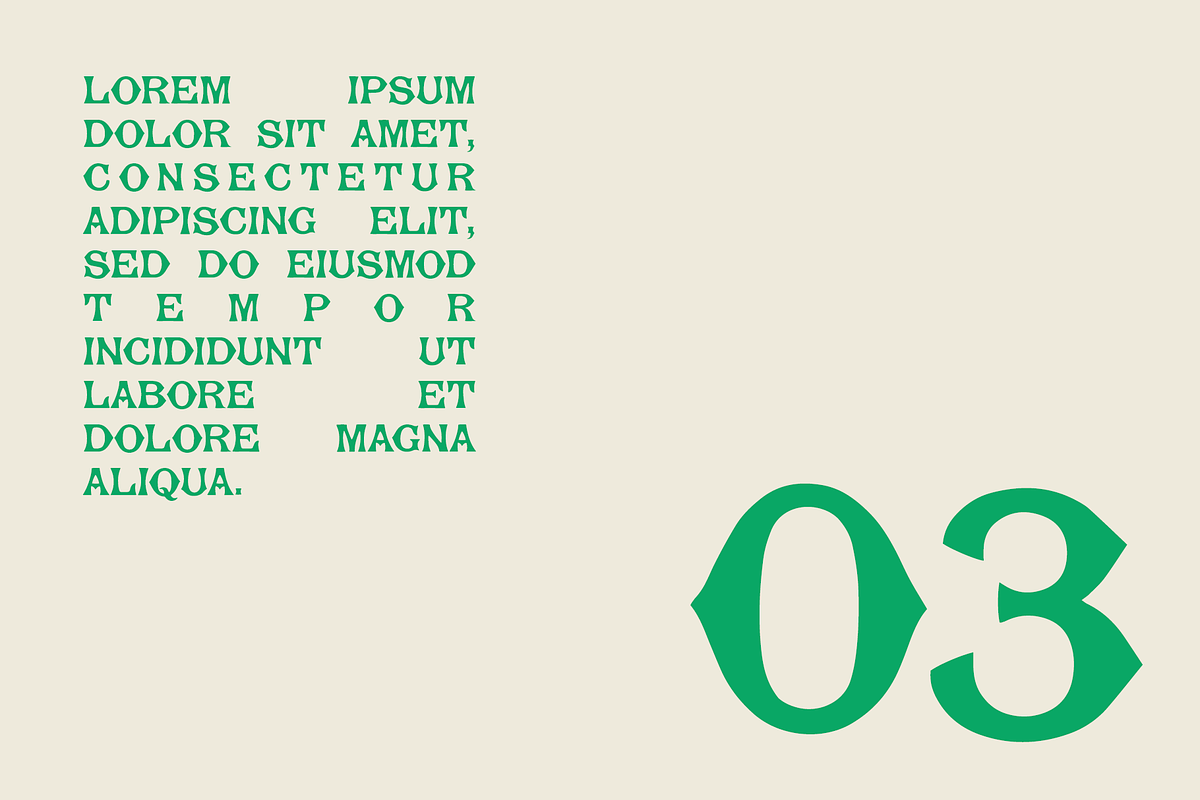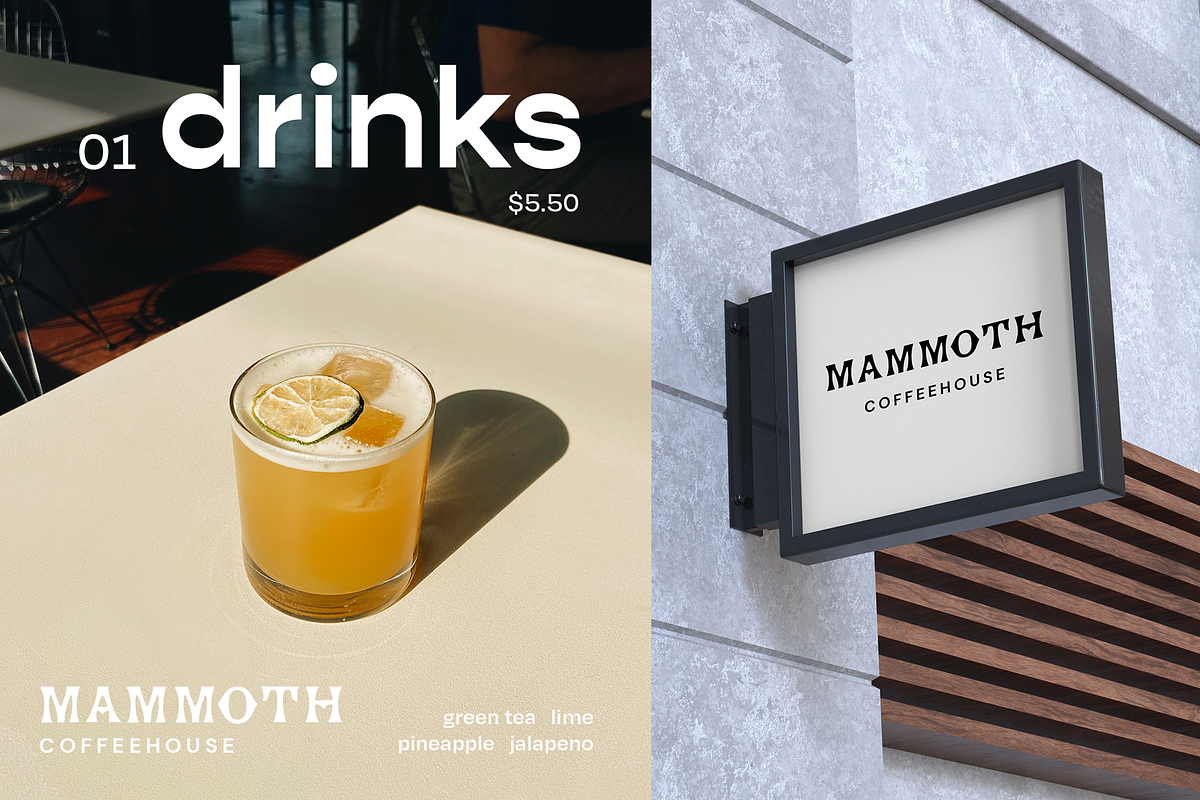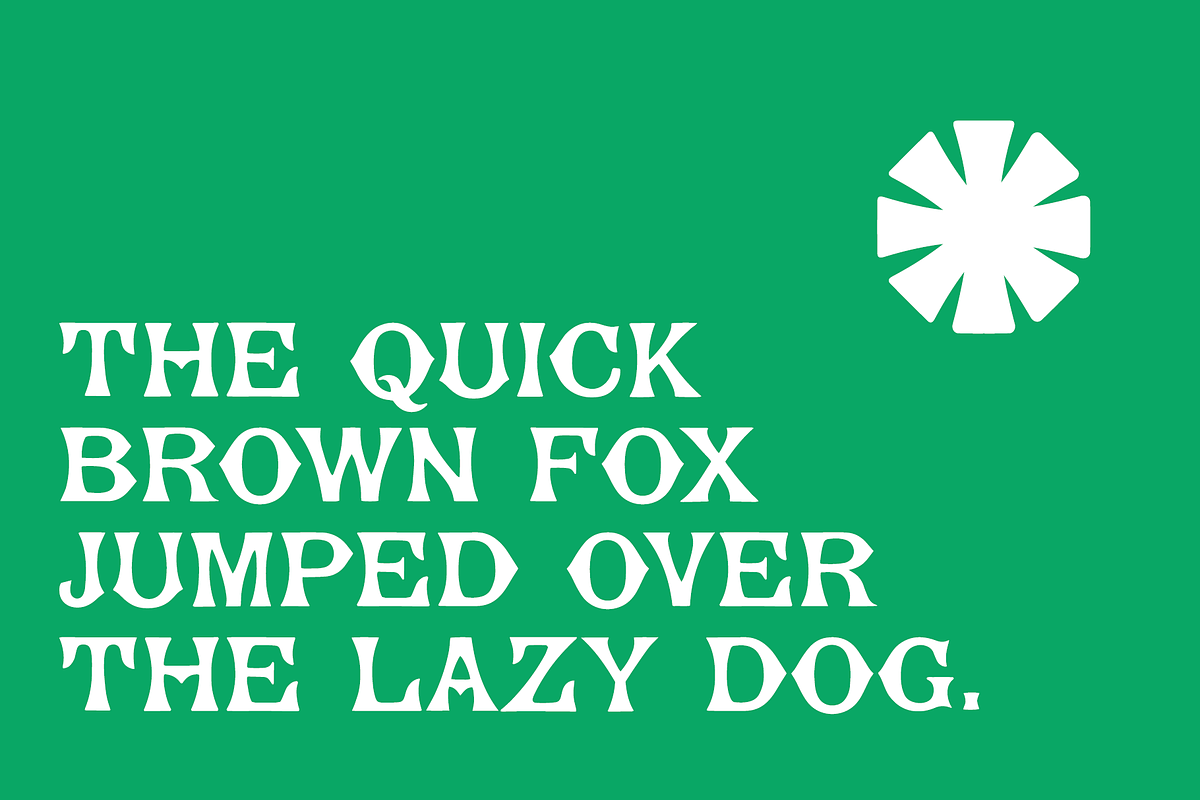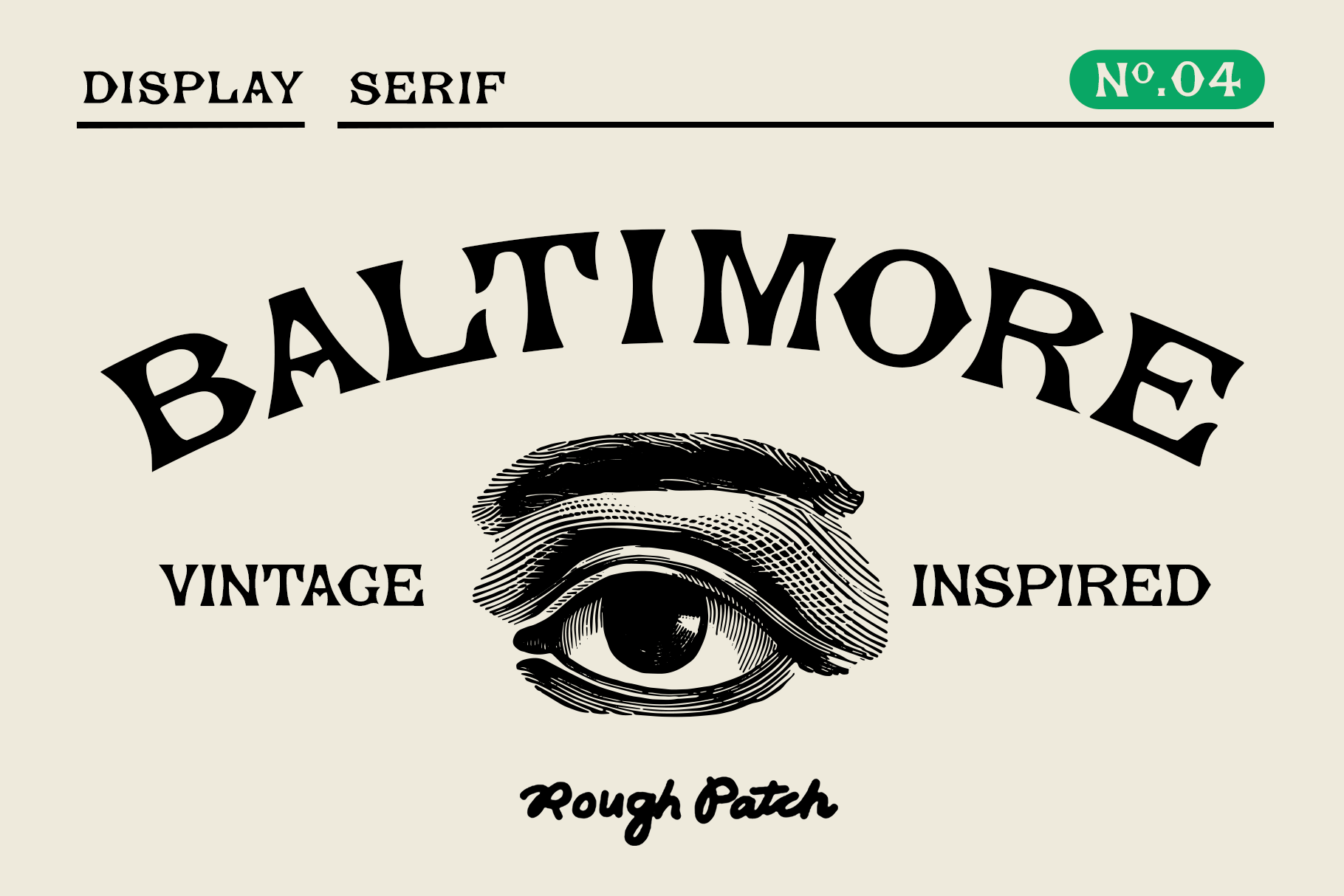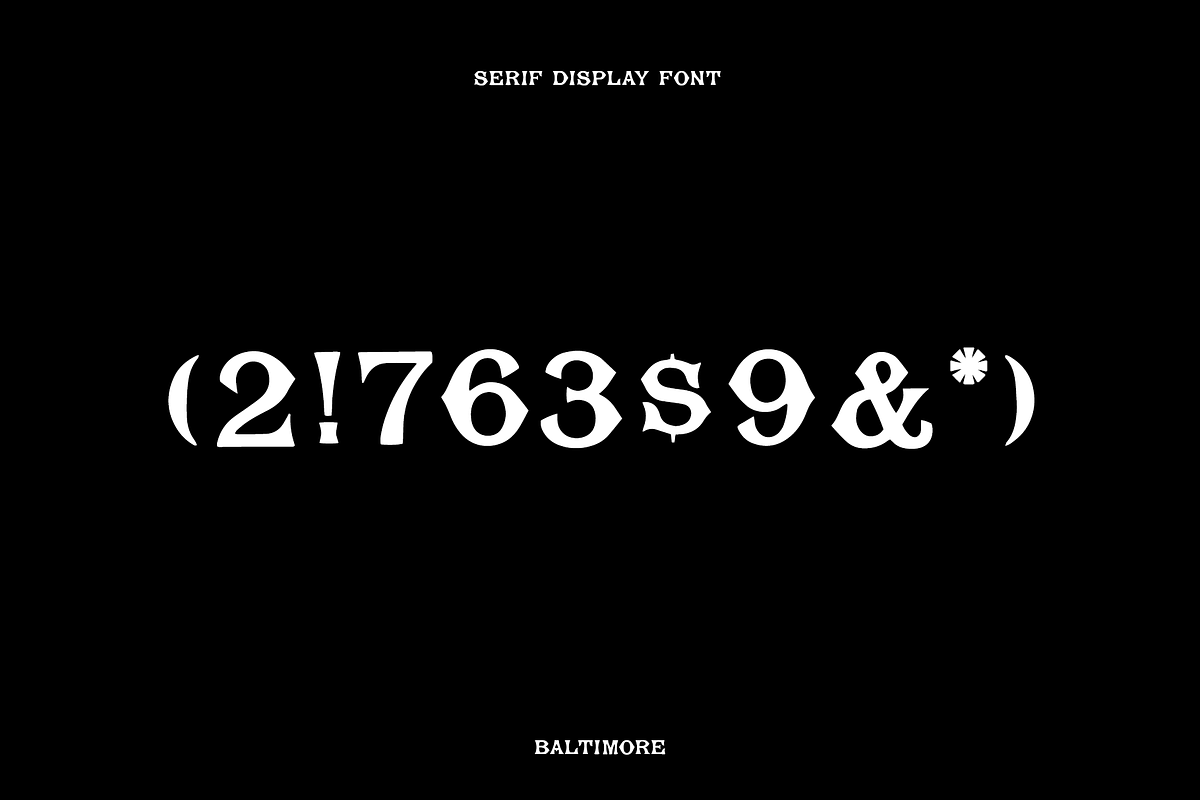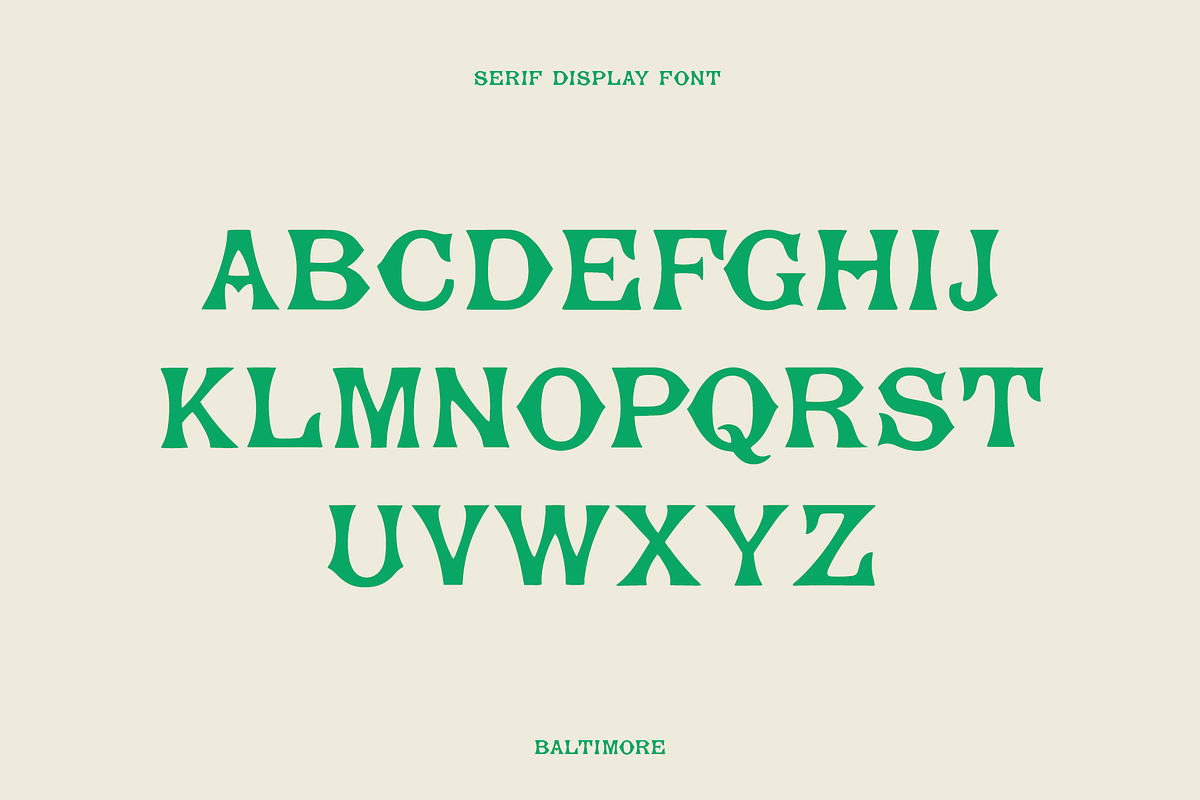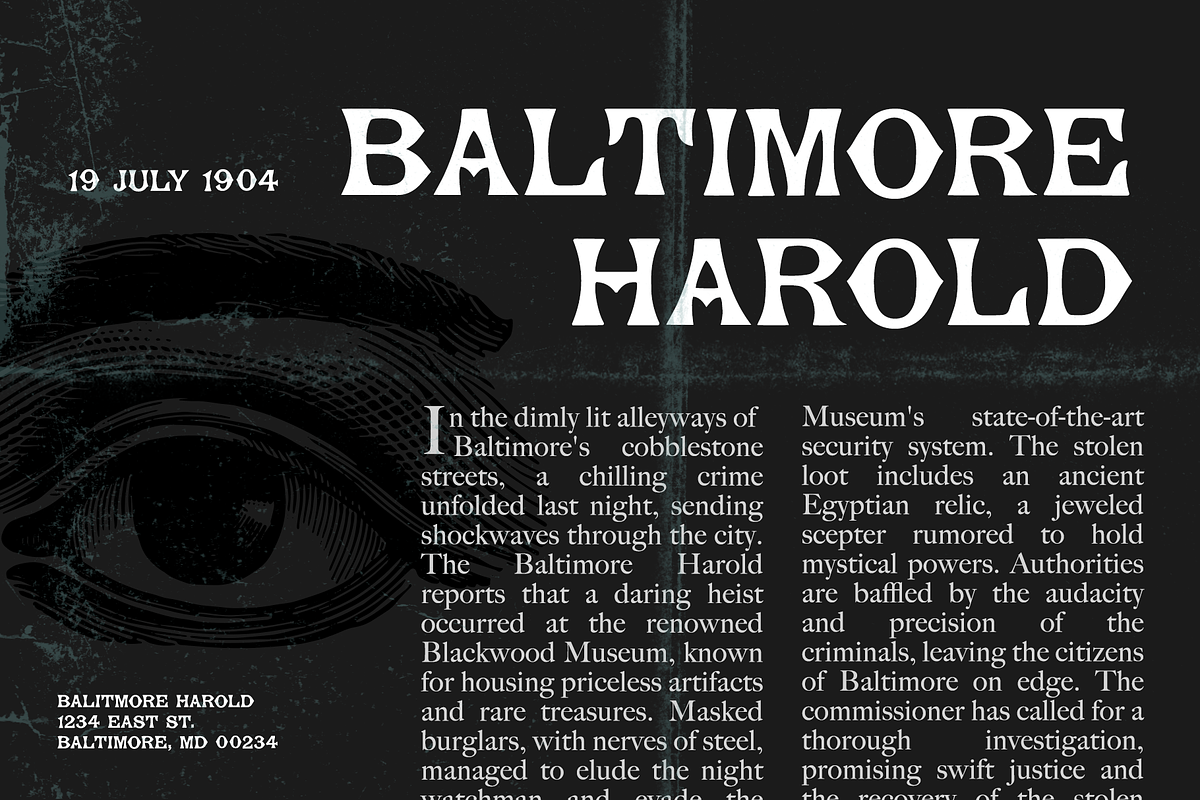
Baltimore | Serif Display Font
Baltimore An uppercase serif font with vintage inspiration and a lot of character. Includes A-Z, numbers & primary symbols. Display font is great for logos, signs, titles, packaging, and whatever other dreams you have.
Designed and kerned with care.